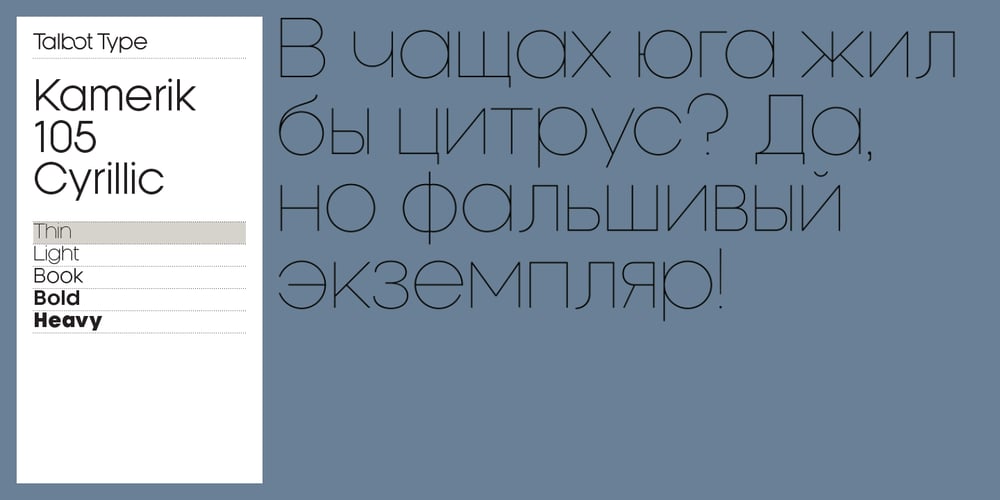
Kamerik 105 Cyrillic Font Family was designed by Adrian Talbot and published by Talbot Type. Kamerik 105 Cyrillic contains 10 styles and family package options. Based on the popular Talbot Type Kamerik 105, this Cyrillic variation is now available for the first time. Kamerik 105 is inspired by the classic, geometric sans-serifs such as Futura and Avant Garde, but has shallower ascenders and descenders for a more compact look. It’s a versatile, modern sans, highly legible as a text font and with a clean, elegant look as a display font at larger sizes. The Kamerik 105 Cyrillic family comprises of five weights.